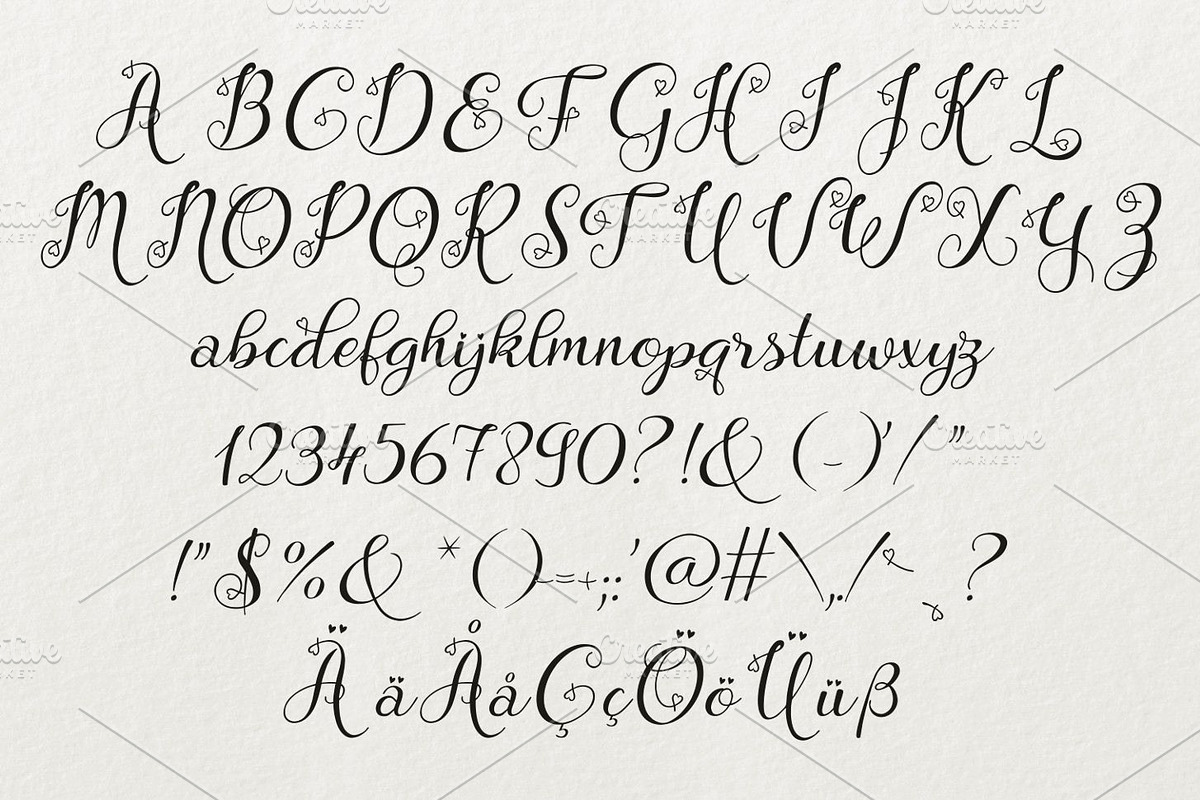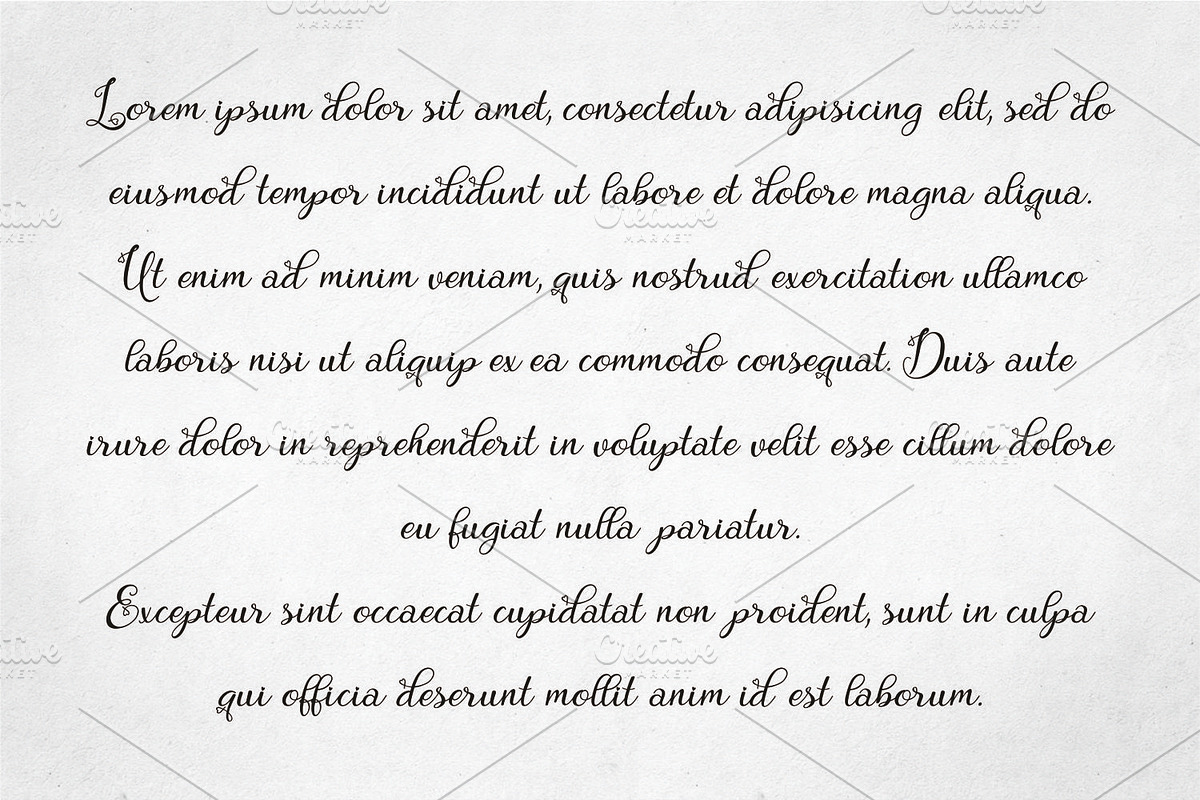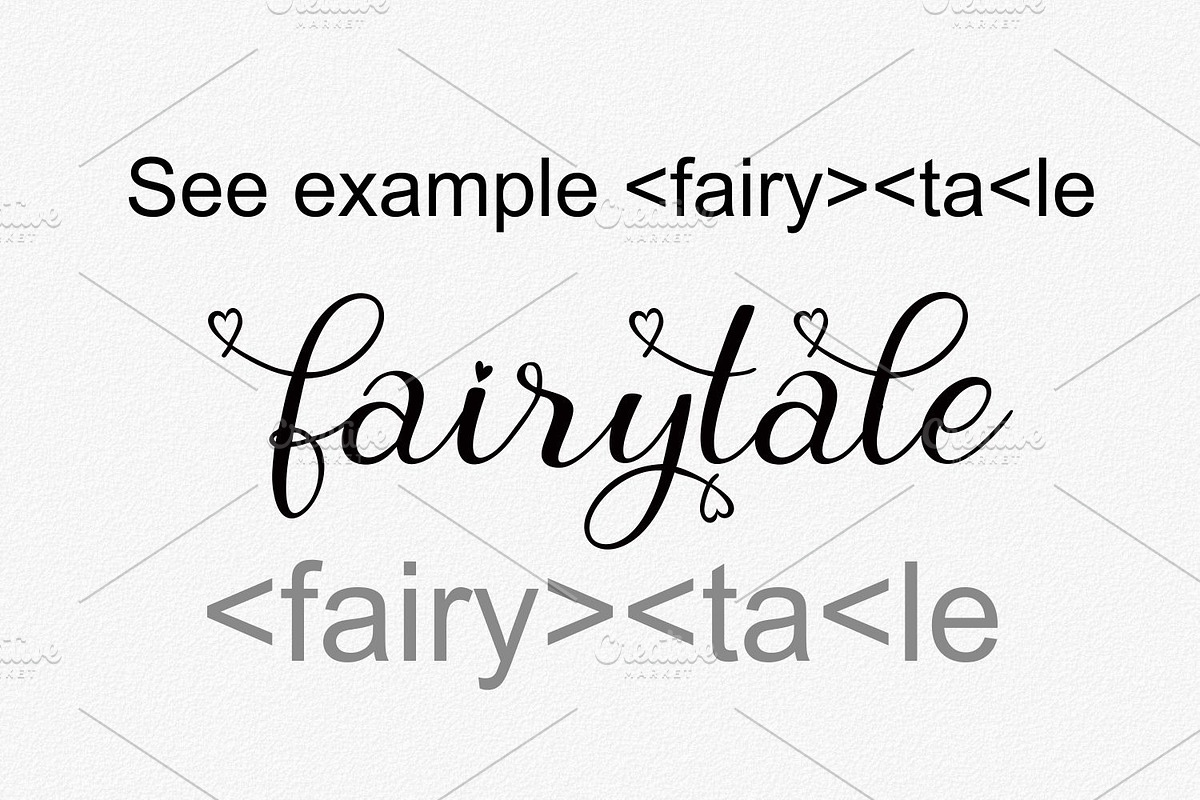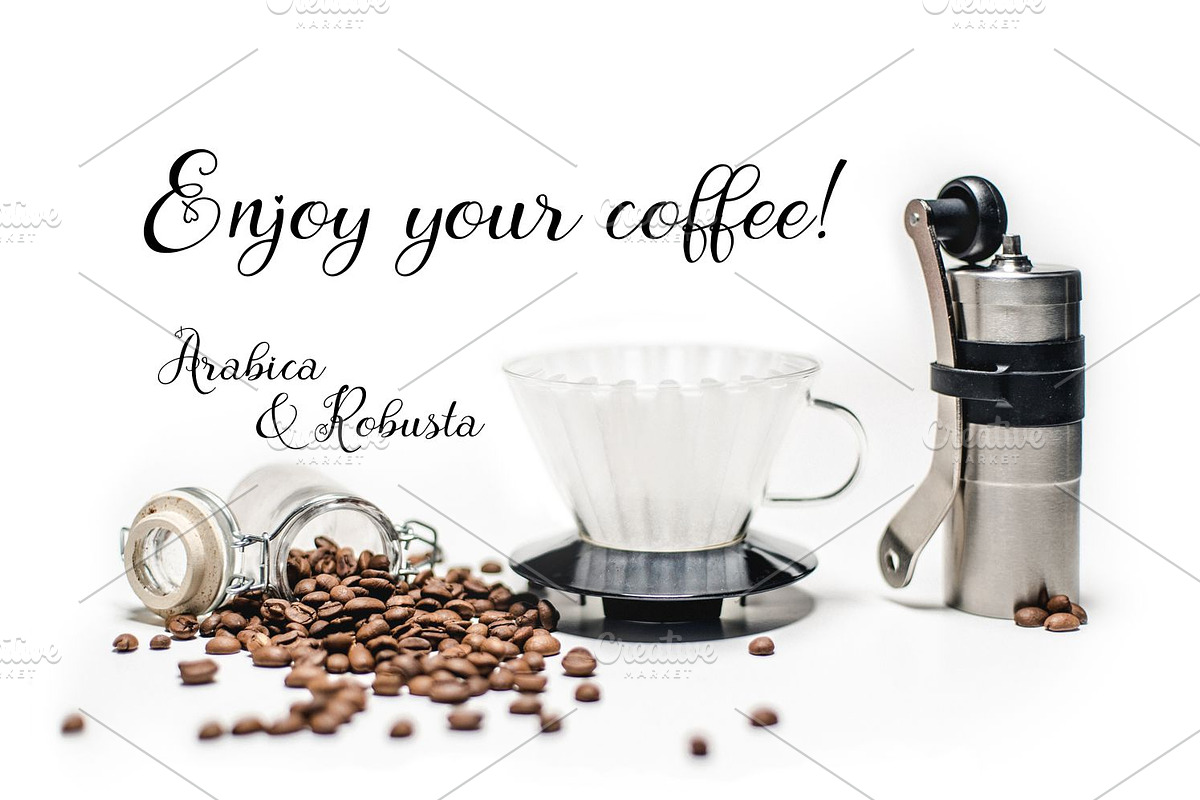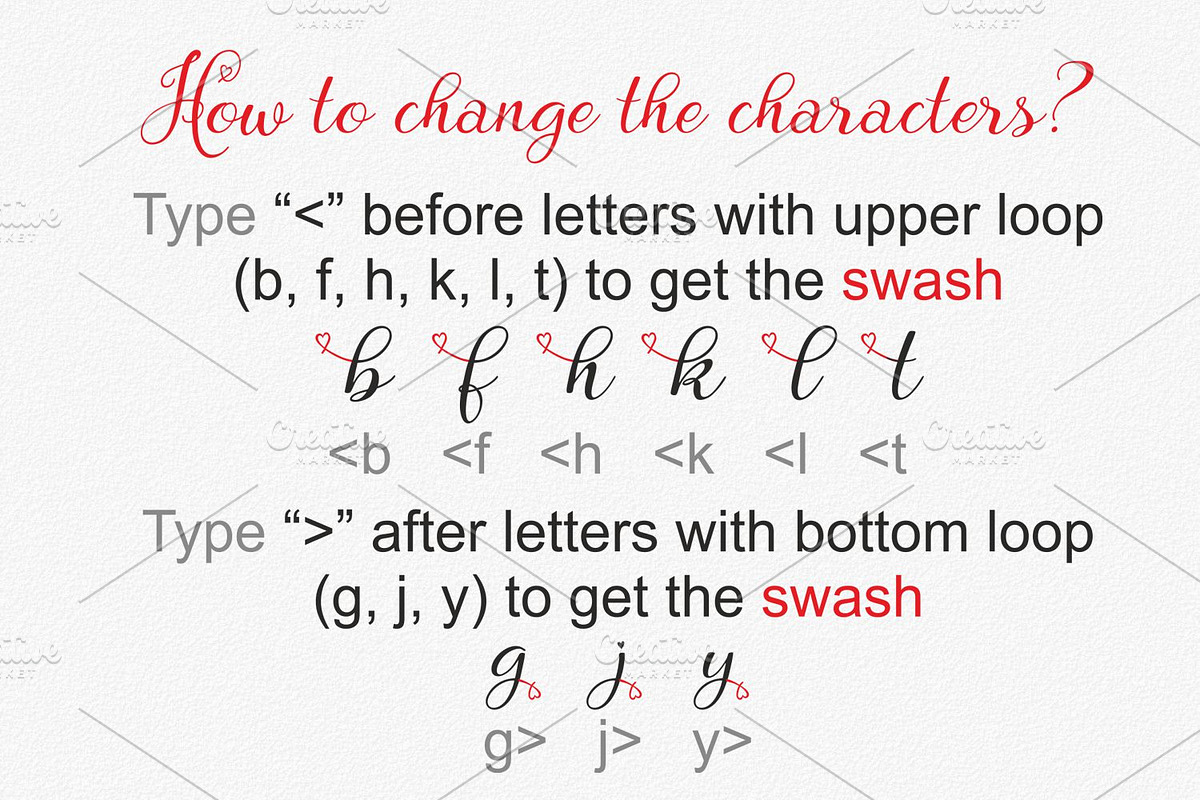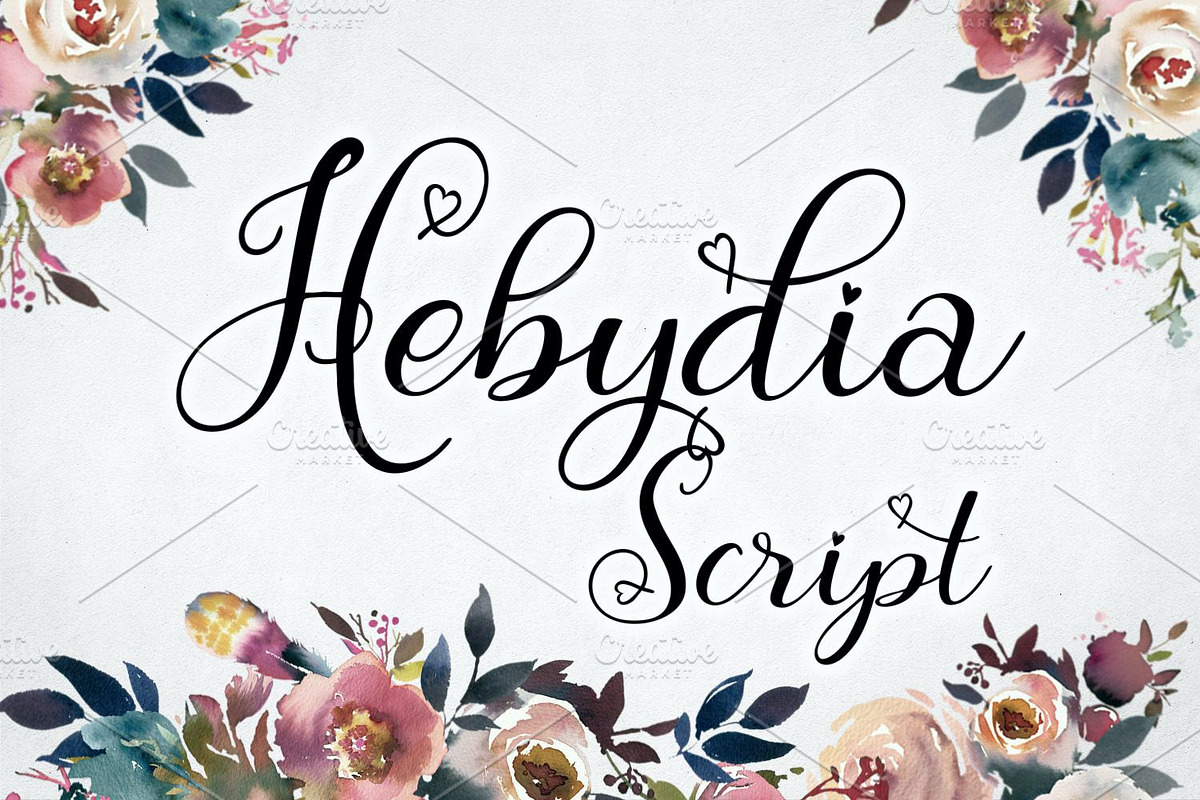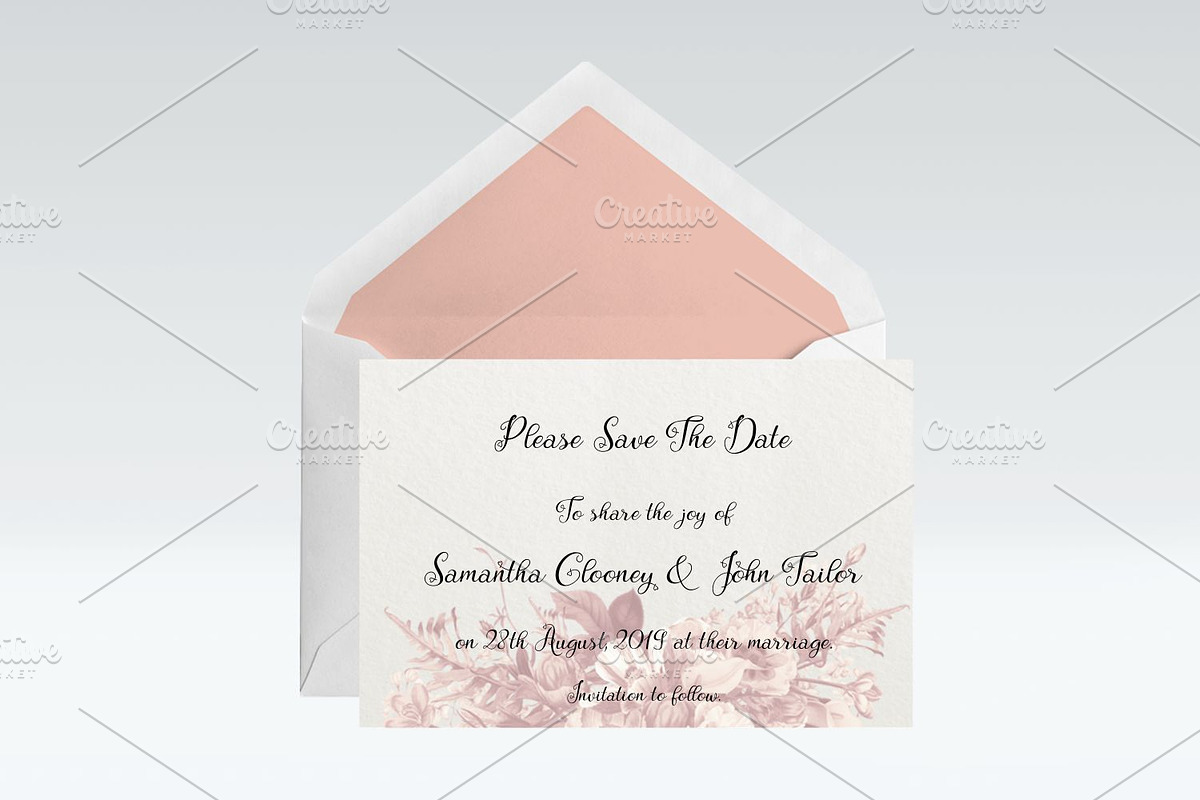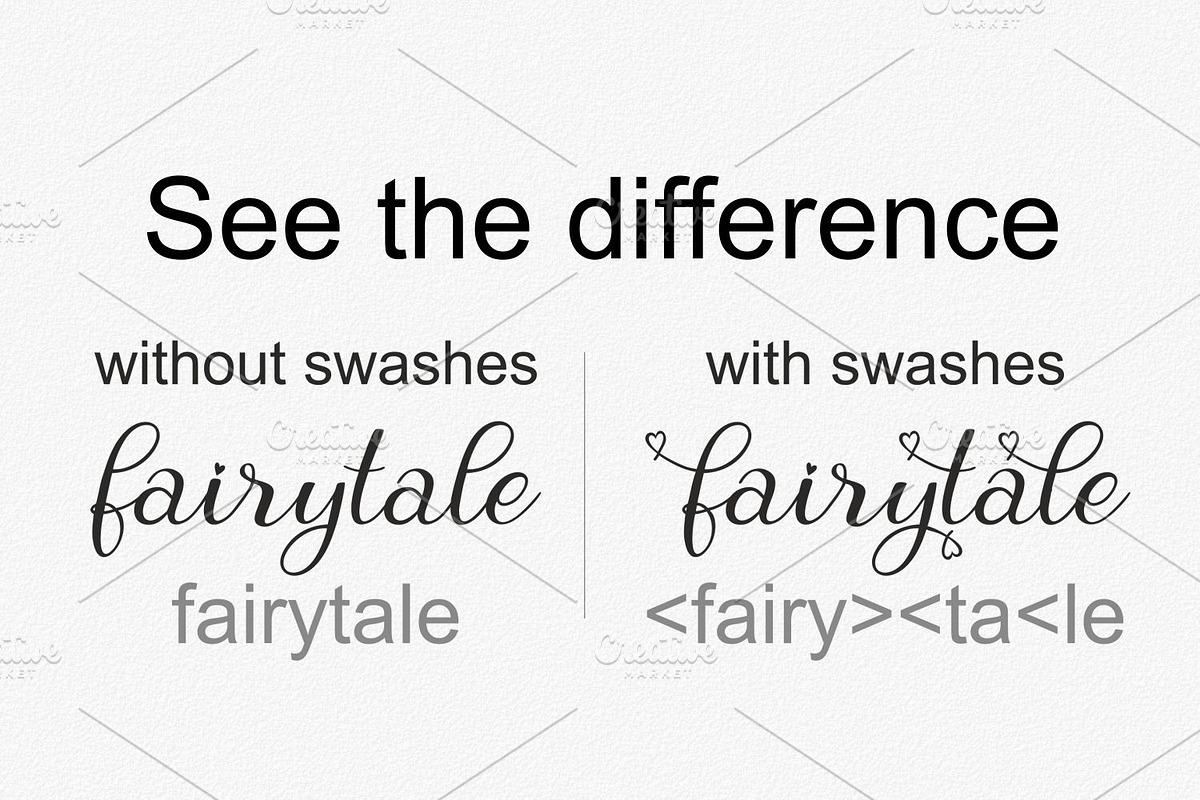
Hebydia
Hebydia is a versatile, hearts decorated, easy to use font. By combining letters and basic characters you can easily get access to the swashes.
- By combining letters and basic characters you can easily get access to the swashes.
Hebydia by Digital Typeface Studio fits naturally into Branding, posters, packaging, typography.